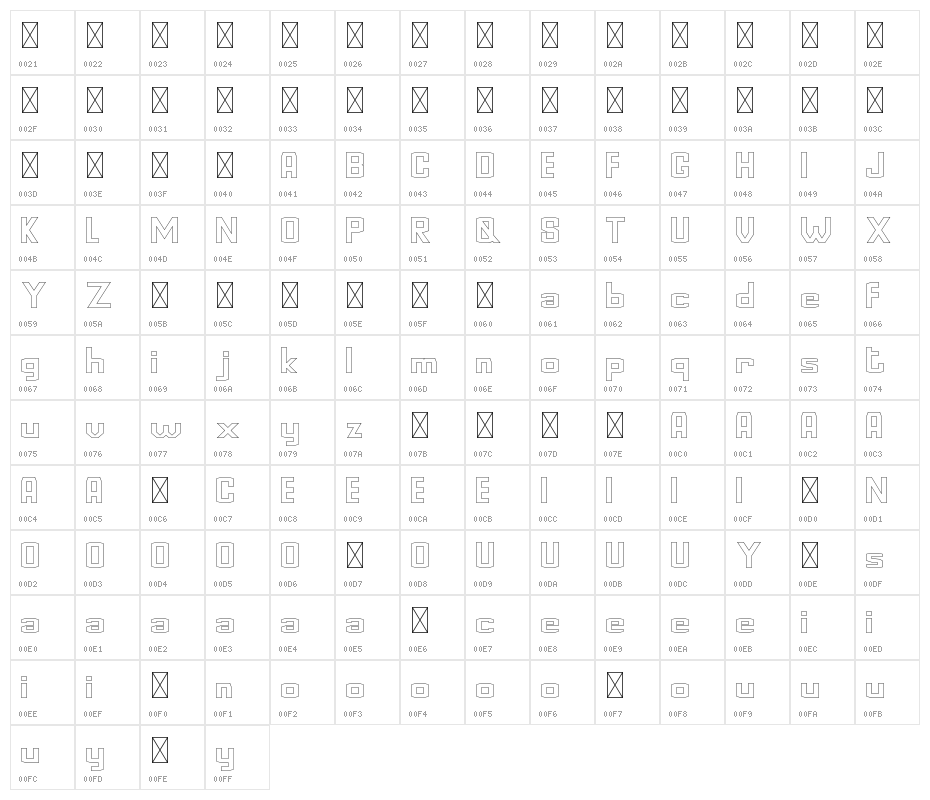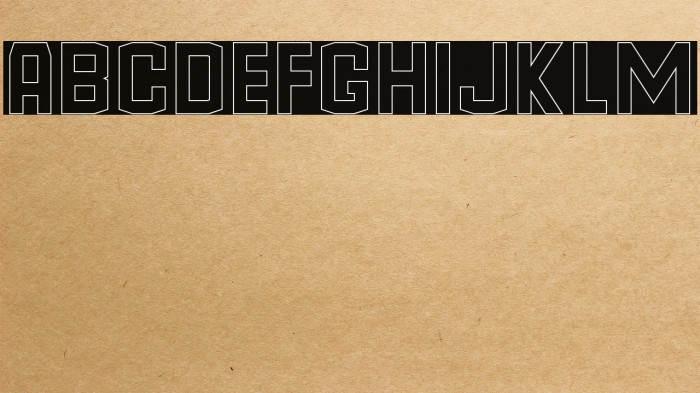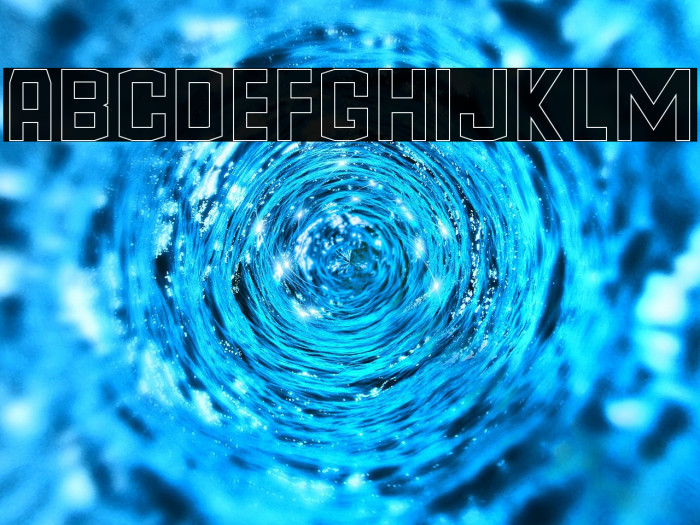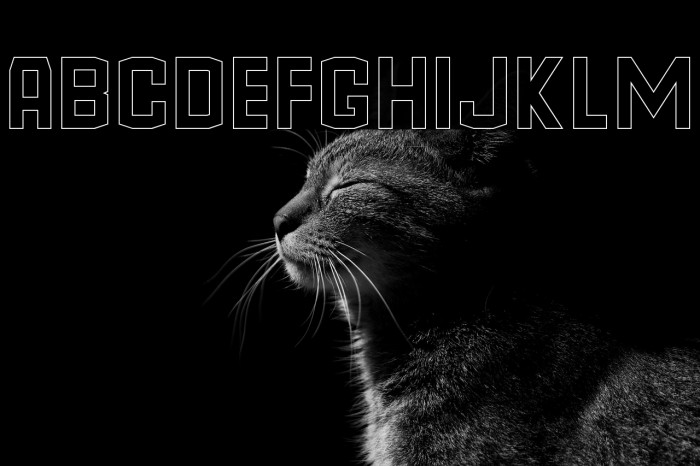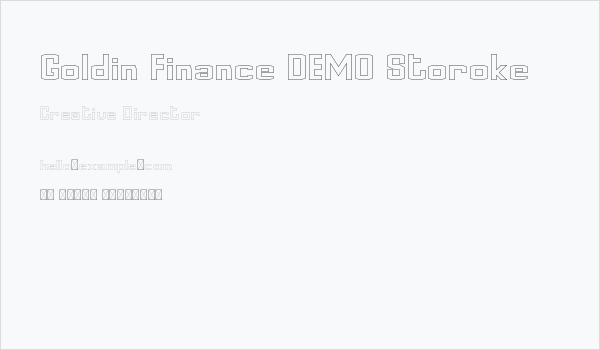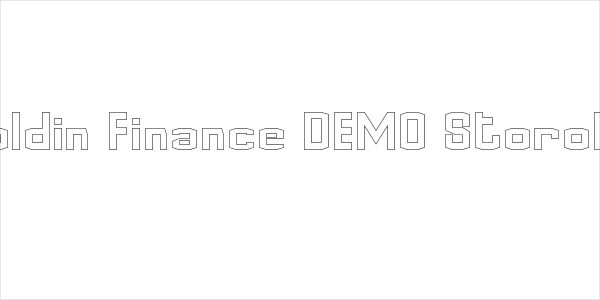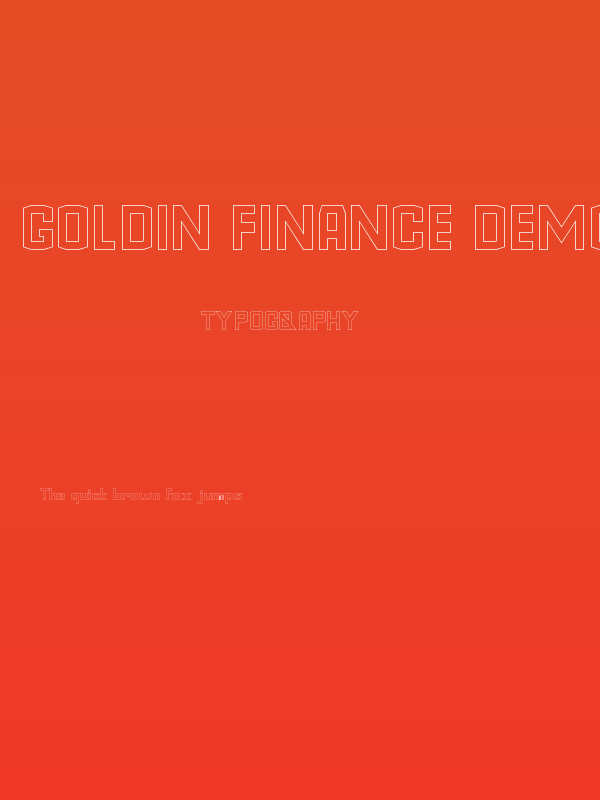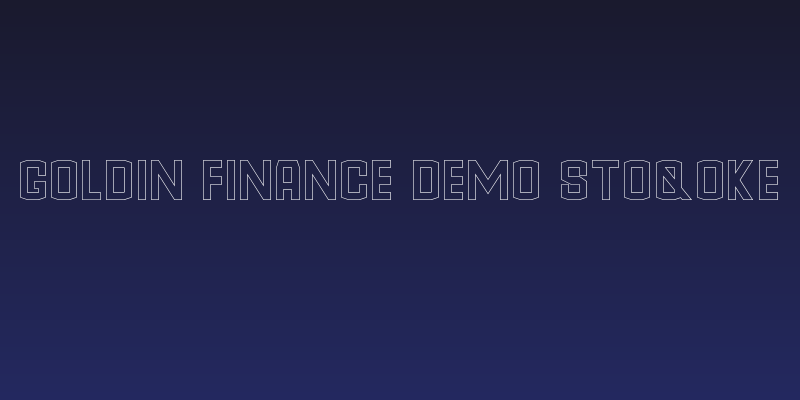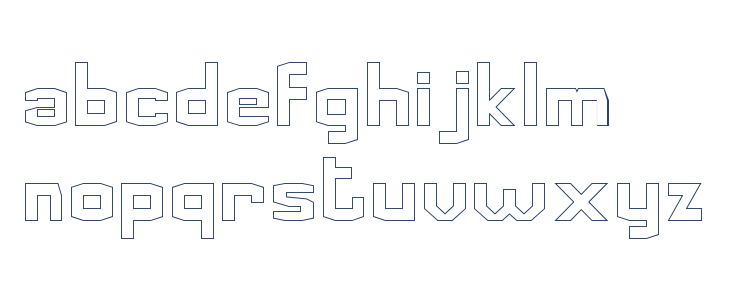
Goldin Finance DEMO Storoke Font
Goldin Finance DEMO Storoke Description
This font features a geometric, outlined style with a modern and technical appearance. The uppercase and lowercase letters are constructed with consistent line thickness, creating a uniform and structured look. The characters have a blocky, angular design, giving them a futuristic and industrial feel. The font's clean lines and open spaces make it highly legible, even at smaller sizes. The absence of curves and the presence of sharp angles contribute to its distinctive and bold aesthetic. This font is versatile and can be used in various design contexts where a contemporary and edgy look is desired.